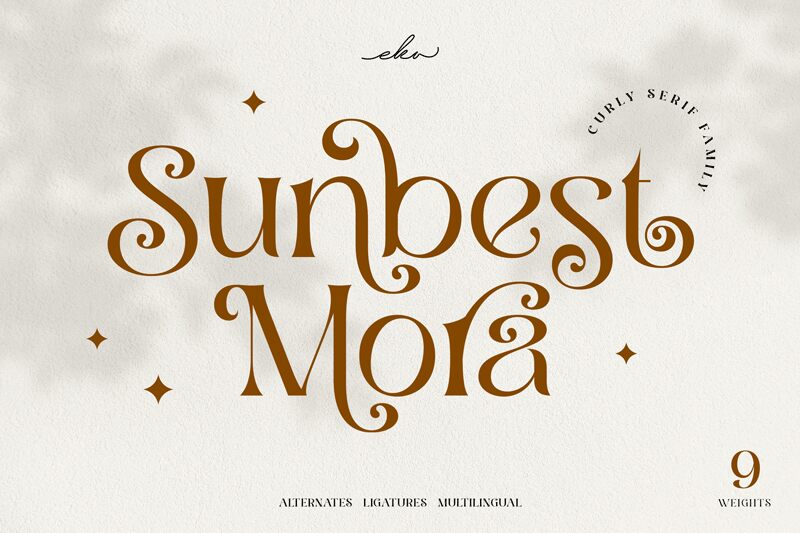
Sunbest Mora, designed by Eka Hermawan, captivates with its elegant serif style. Characterized by its intricately crafted curves and strikingly sharp serifs, this font exudes a classical charm that is hard to miss. Each letter flows gracefully, enhancing the overall visual allure of the text.
The unique blend of whimsical swirls and bold structure makes Sunbest Mora ideal for various creative projects. It shines in sophisticated branding, luxurious invitations, and editorial designs where an air of refinement is essential. Whether you are aiming to create a timeless logo or an eye-catching headline, Sunbest Mora adds a touch of class that commands attention while maintaining readability.
Embrace the artistry of Sunbest Mora-an epitome of serif elegance tailored for both modern and traditional design aesthetics.